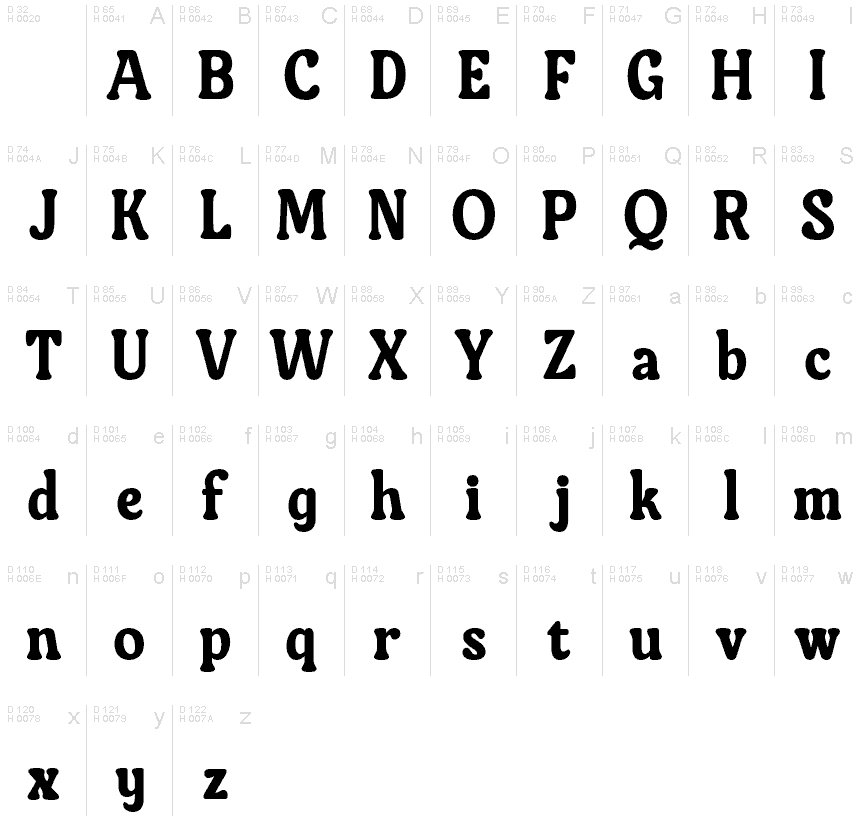
CS Boline Demo Regular
CS Boline is a free vintage serif font presenting elegant serif letters with decorative elements. The typeface by Craft Supply Co. carries a traditional design inspired by the early days of writing and typography; this includes amazing curves, lines, corners, and every other possible detail you may think of. This is a stunning classic yet stylish professional font with character.
Use CS Boline to add power to headlines in magazines or newspapers while maximizing its use in advertisements for top-notch brands. Labels and packaging that need a creative spark will benefit from this free font as much as restaurant menus, websites/app pages, invitations, branding designs, clothes/accessories promo material, intriguing posters/flyers/banners/rollups etc!